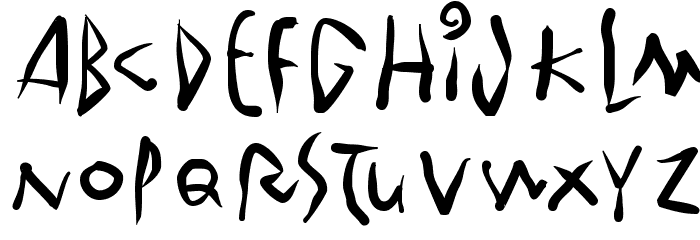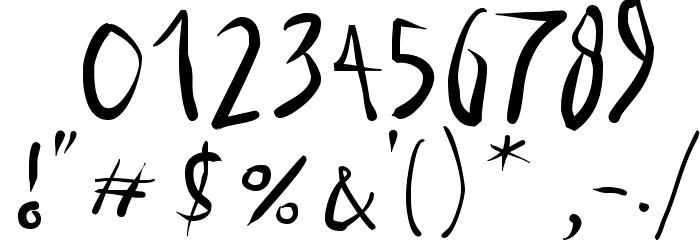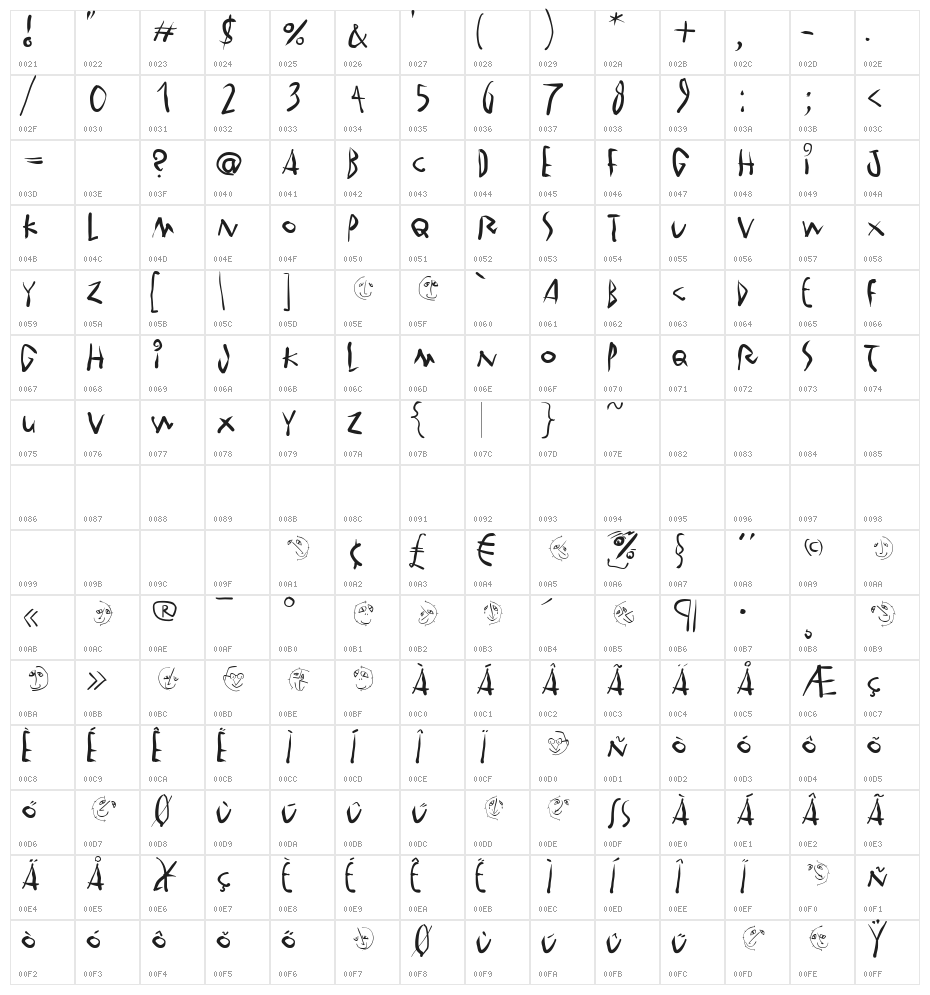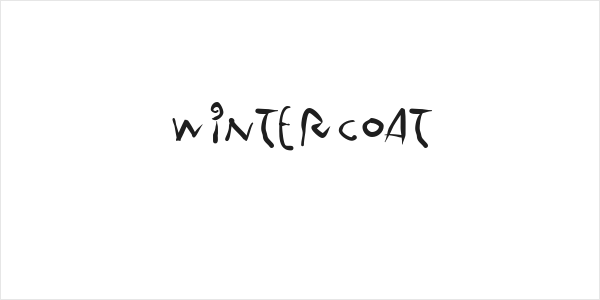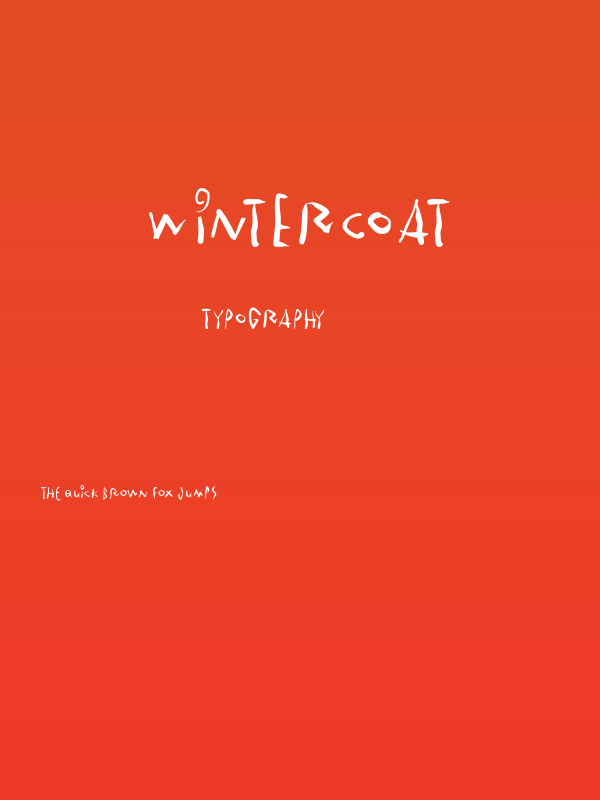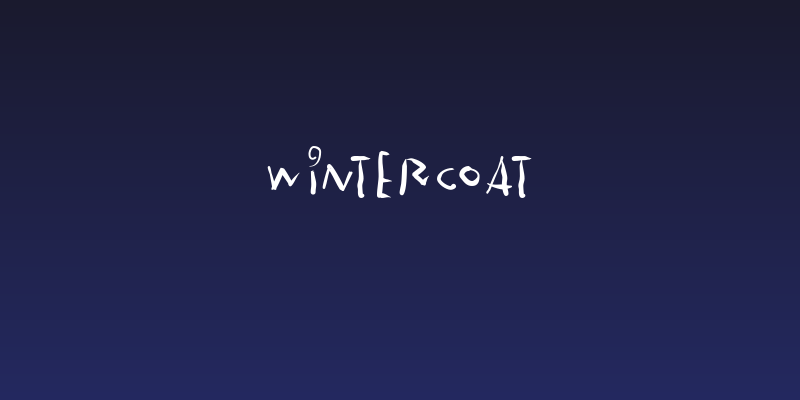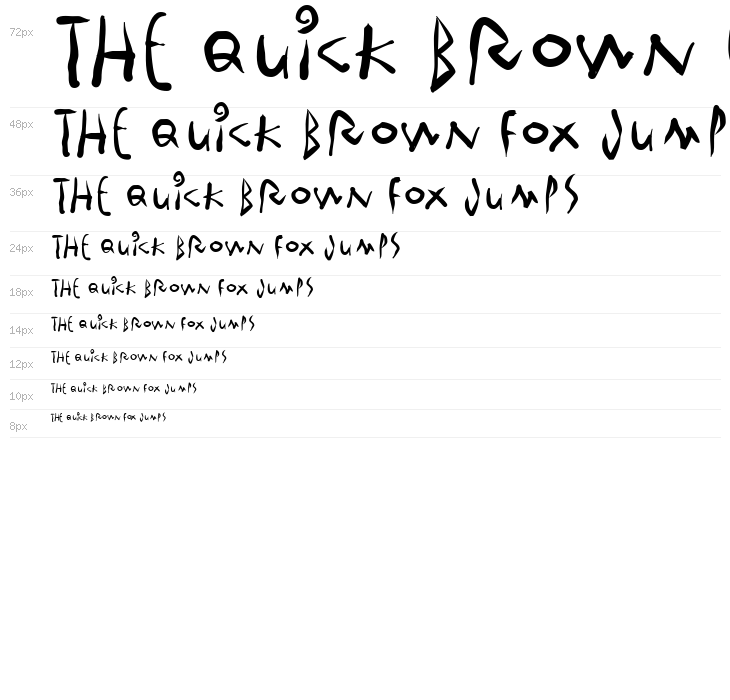
WinterCoat Font
This font exhibits a unique, hand-drawn style with an expressive and artistic flair. The letters are characterized by irregular strokes and varying thickness, giving it a dynamic and spontaneous appearance. The uppercase and lowercase letters maintain a consistent style, with some characters featuring exaggerated curves and angles. The numbers and special characters follow the same artistic theme, adding to the overall cohesive look. This font's playful and informal nature makes it suitable for creative projects that require a personal touch.
A hand-drawn, expressive font with irregular strokes and artistic flair.
- Proposed Projects: Ideal for art projects, creative branding, invitations, posters, and any design needing a personal, artistic touch.
- Use Case: Logos, Posters, Invitations